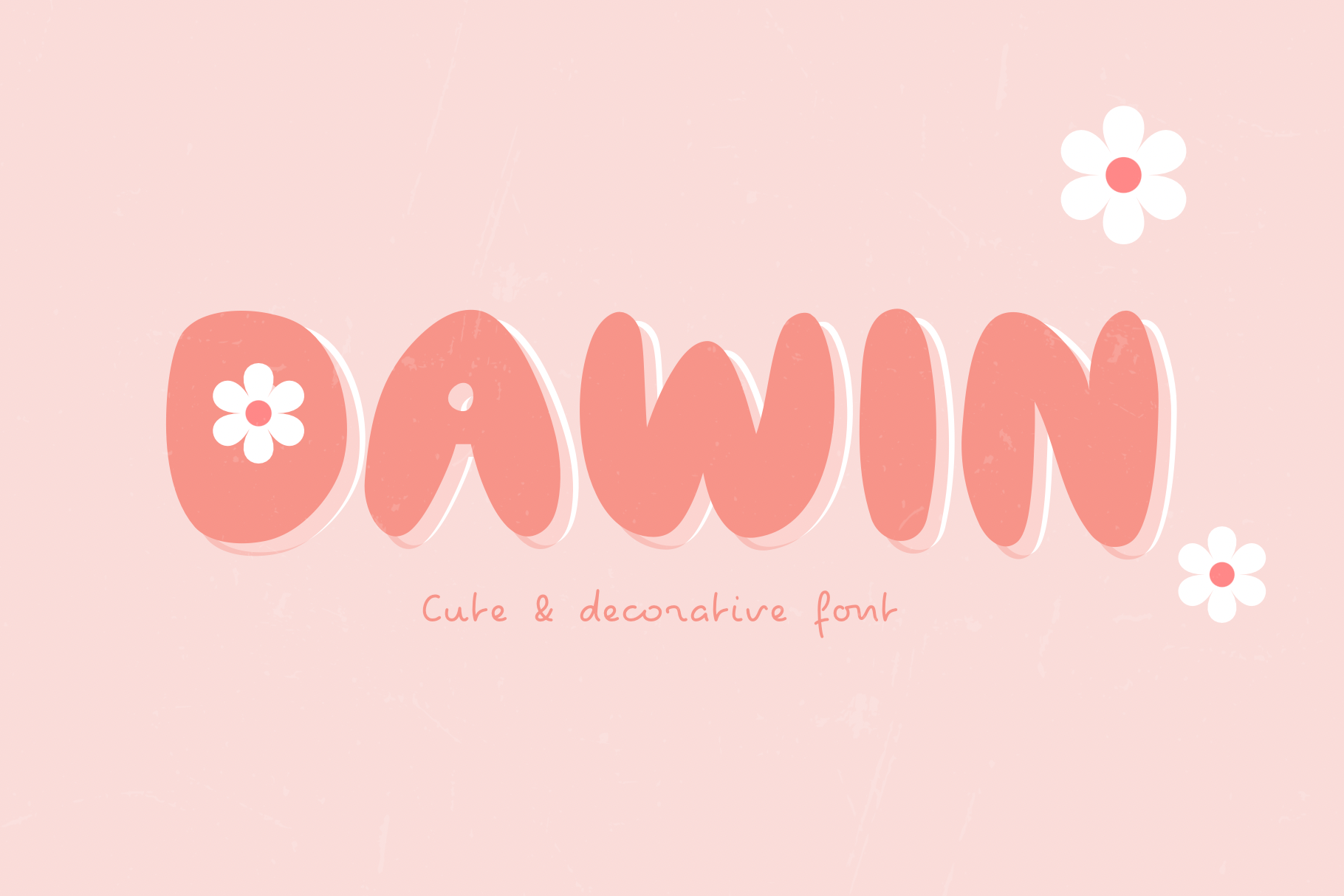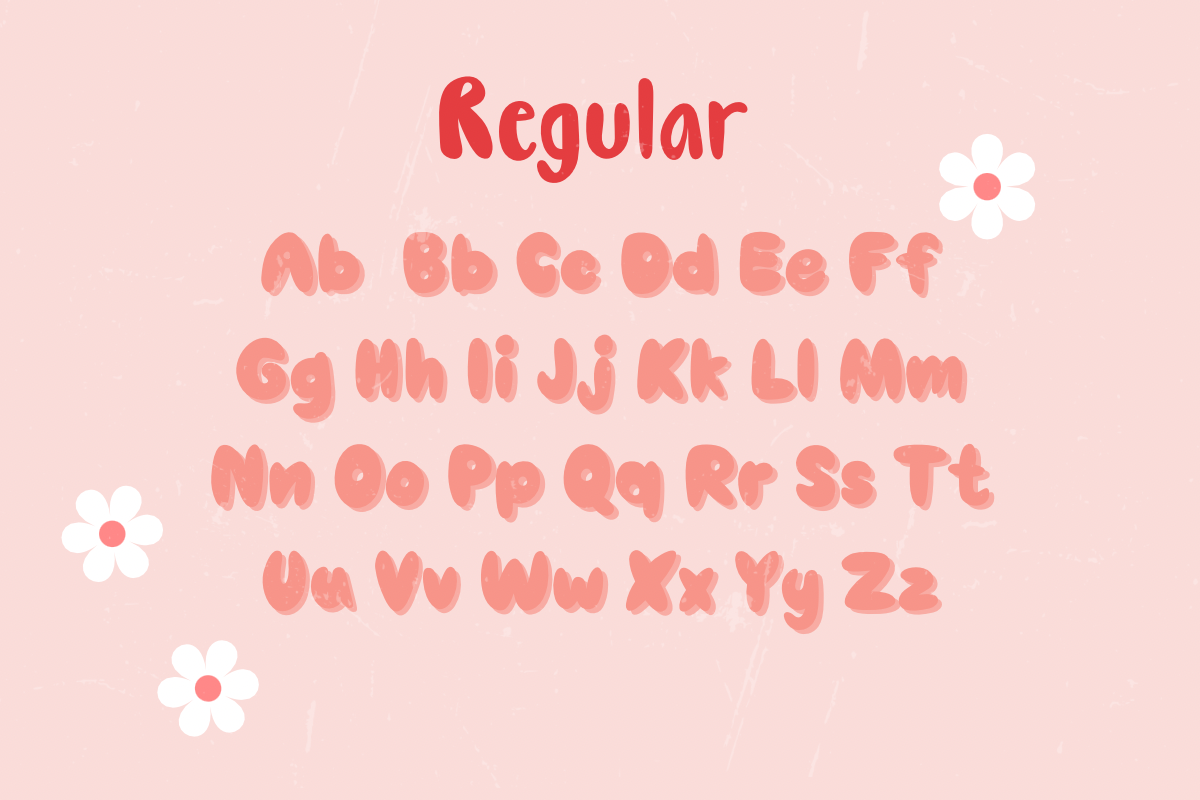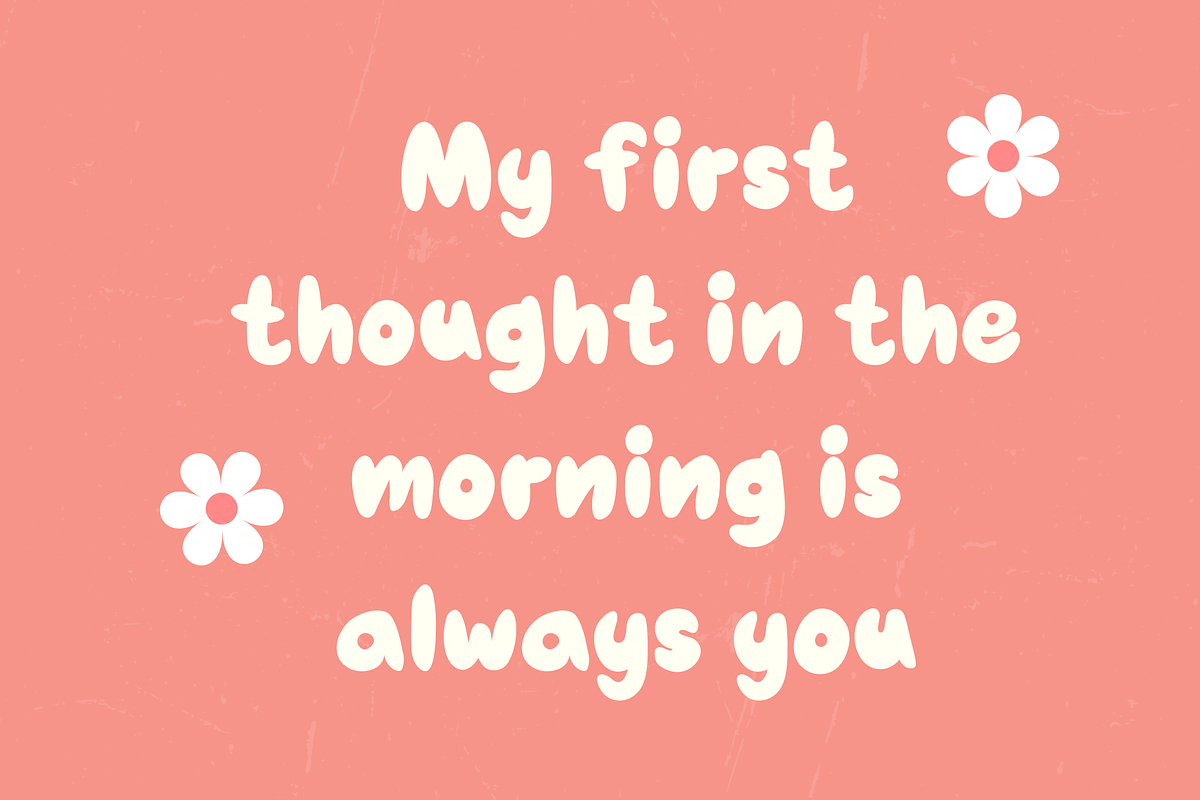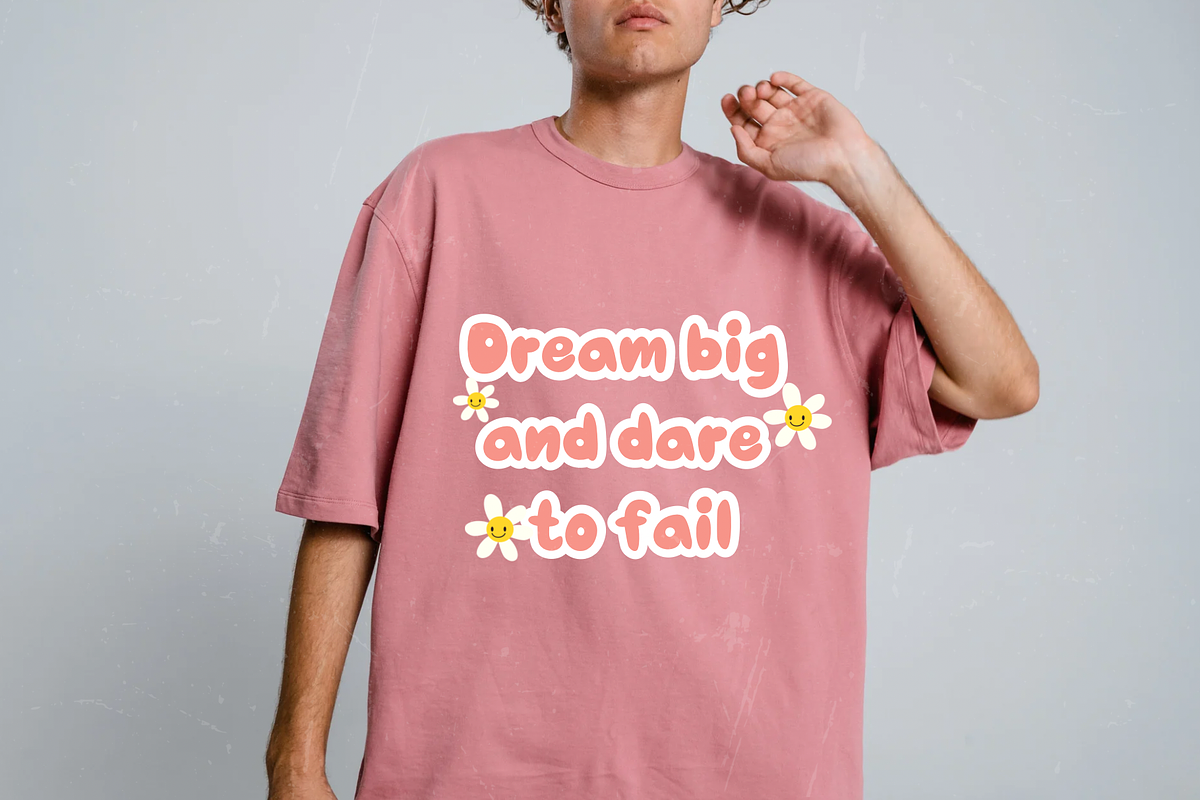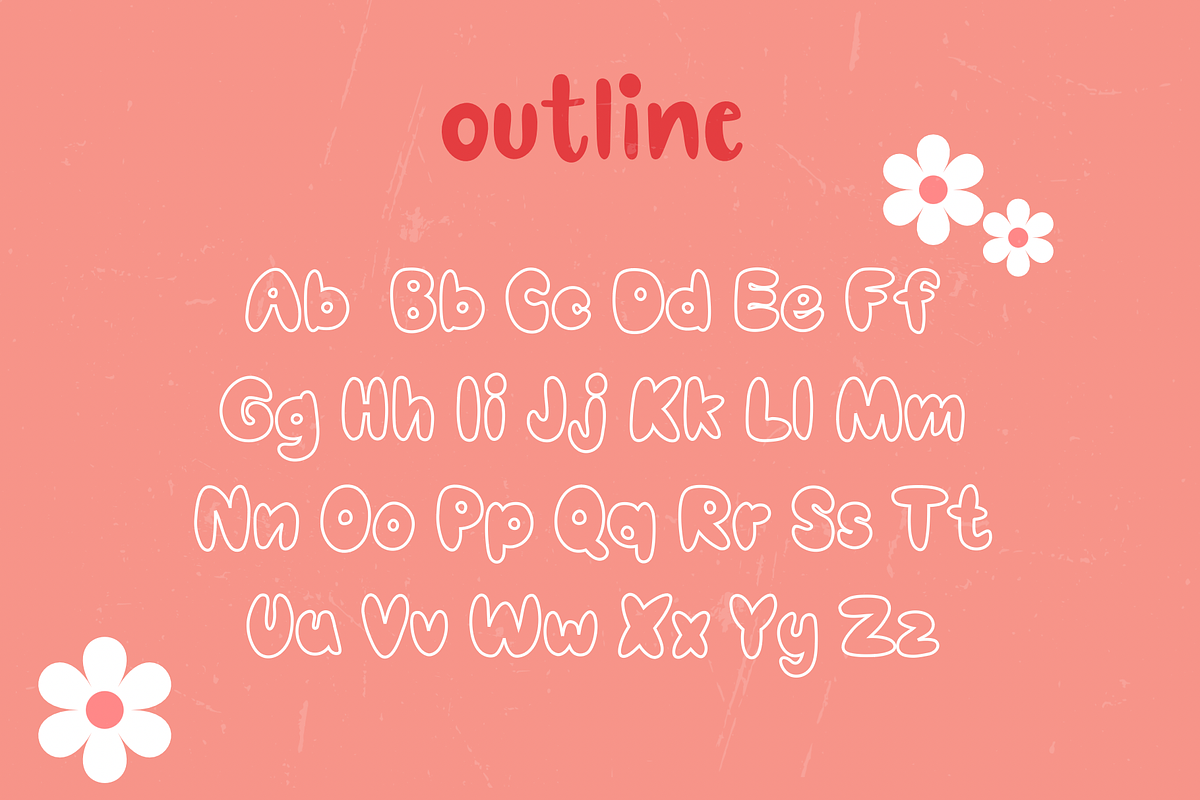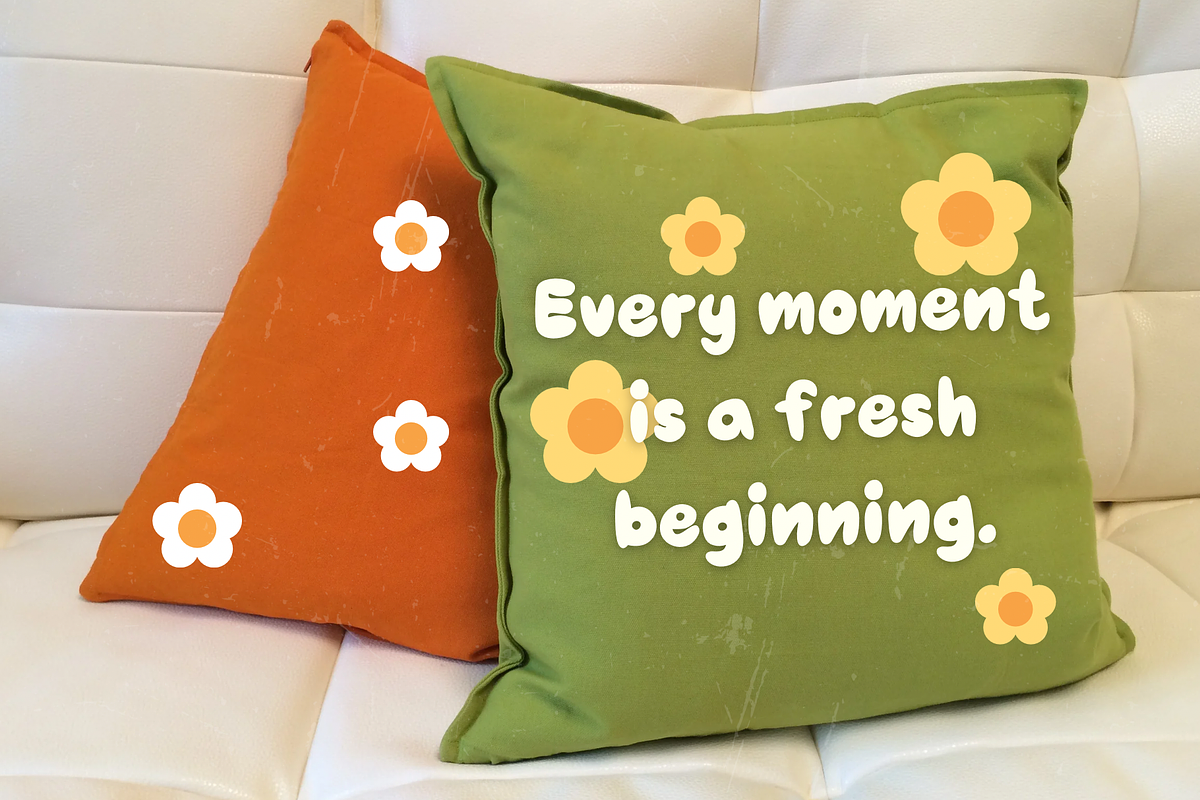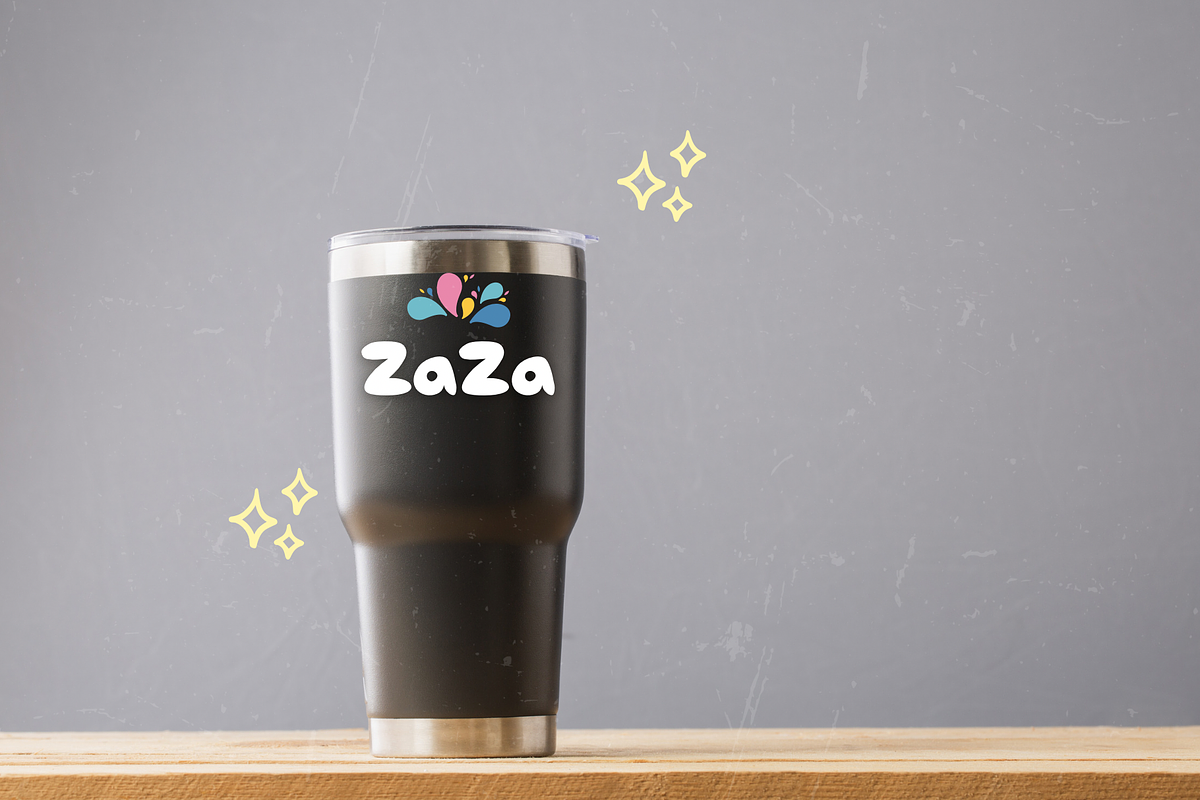
Dawin font
Dawin it a display handwritten font. This decorative font has been designed to feel modern, stylish, and contemporary, making your design work stand out. It can be applied to various design projects, whether it's clothing, bags, books, and more, to showcase your unique personality. Enjoy the design process!